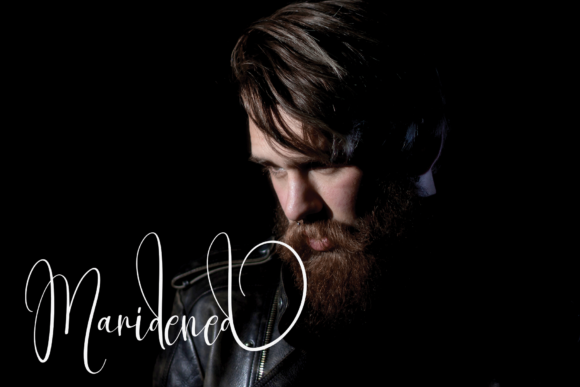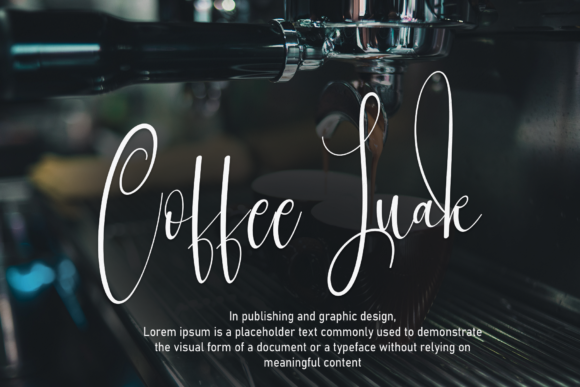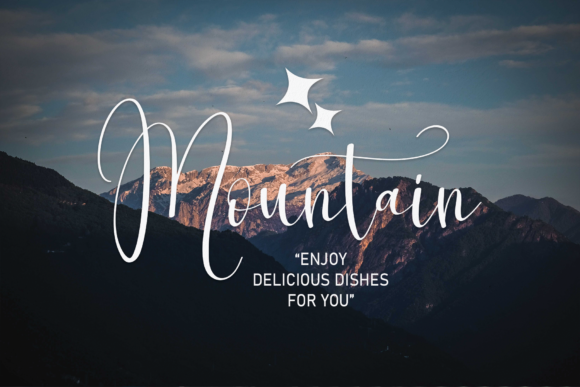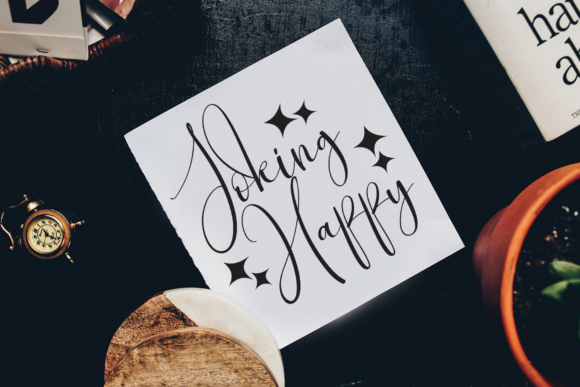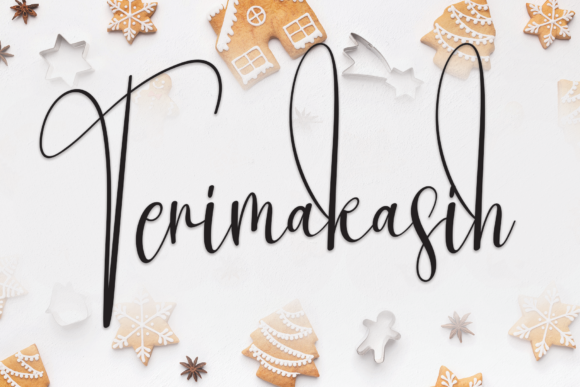
The Sweet Taste of Typography
Have you ever found yourself rummaging through your grandmother’s old recipe book, inhaling the scent of freshly baked cookies and reminiscing about the countless hours spent in the kitchen with her? For many of us, the smell of gingerbread instantly transports us back to a time of warmth and nostalgia. And what if I told you that you can capture this same feeling in your designs?
Enter the Gingerbread Font, a beautifully flowing cursive script font that exudes a sense of elegance and whimsy. Perfect for modern wall displays, wedding invitations, and social media post logos, this font adds a touch of handmade charm to any project. Whether you’re a seasoned designer or just starting out, the Gingerbread Font is a valuable addition to your toolkit, offering a unique and versatile way to add personality to your designs.
Gingerbread Font Key Features
- Font Family: A unique, hand-drawn font family with 6 styles, including regular, italic, bold, bold italic, script, and script italic.
- Unique Characteristics: Features a warm, nostalgic feel, with intricate details and textures, evoking the traditional charm of gingerbread.
Gingerbread Font Review
I’ve had the chance to play around with the Gingerbread Font, and I must say, it’s a unique addition to any design project. ✨ The font’s playful, whimsical feel is perfect for festive designs, children’s books, or even holiday-themed branding. The rounded edges and bouncy curves make it a great choice for projects that need a bit of personality.
Here are some of the things I like about Gingerbread Font:
- ✨ Versatility: It works well for a variety of design projects, from print materials to digital designs.
- ✨ Readability: The font is easy to read, even at smaller sizes.
- ✨ Customization: The font offers several weights and styles, making it easy to customize to suit your design needs.
- ⚠️ Limited language support: The font may not be suitable for designs that require multiple languages.
- ⚠️ Not ideal for formal designs: The font’s playful feel may not be suitable for more formal or professional designs.
Overall, I think Gingerbread Font is a great addition to any designer’s toolkit. While it may not be suitable for every project, it’s a fun and versatile font that can add a lot of personality to your designs.
Gingerbread Font: A Practical Application Guide
Tips for Getting the Most Out of Gingerbread Font
For the best results, use Gingerbread Font in conjunction with festive graphics and colors.
Experiment with different font sizes and styles to create a unique and eye-catching design.
Gingerbread Font is ideal for:
Seasonal holiday cards and invitations
Food and dessert labels
Children’s party decorations and invitations